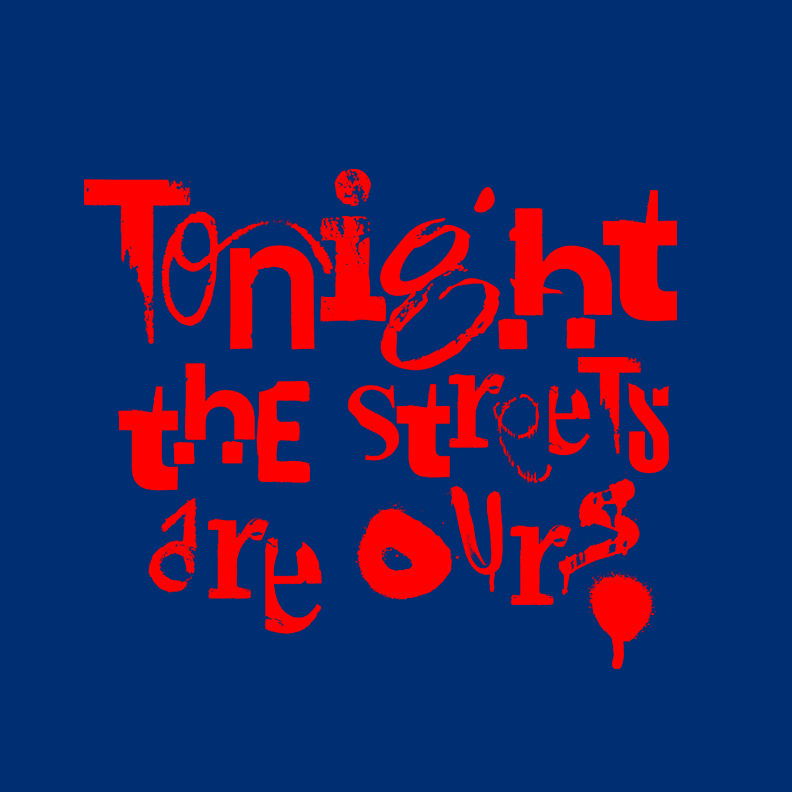
Preview and download Gadetyper Font. Created by Christian Koch in Fancy Distorted styles with 100% Free license.
This is a font consisting of more than 250 glyphs photographed in the streets of Copenhagen. The name is Gadetyper which means street type in danish. Please tag your work done with this font with #gadetyper Enjoy Thanks |